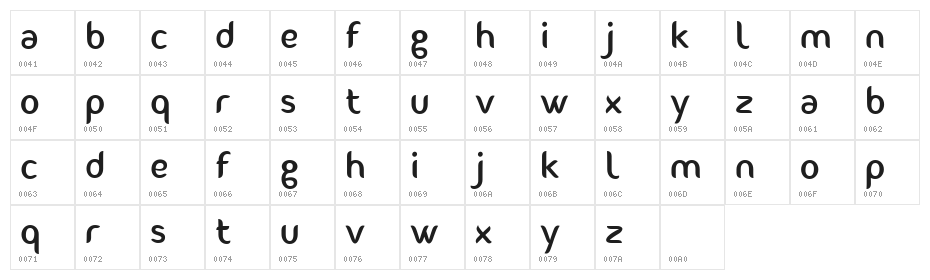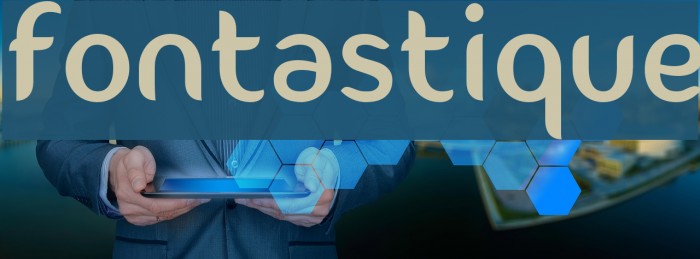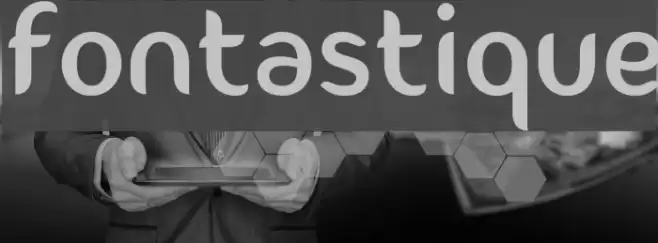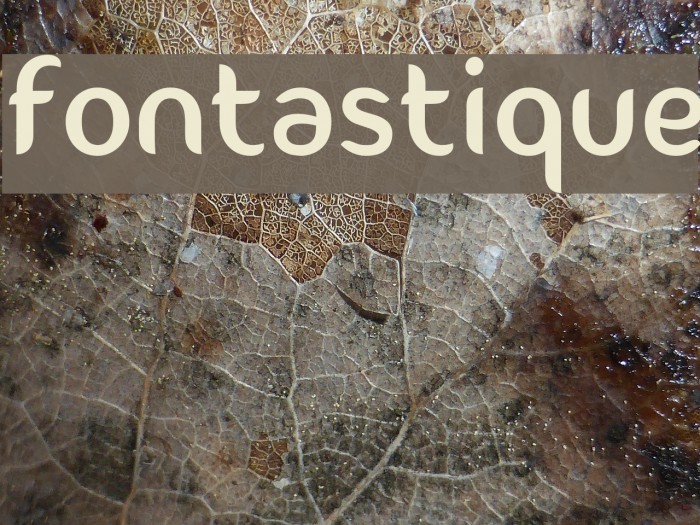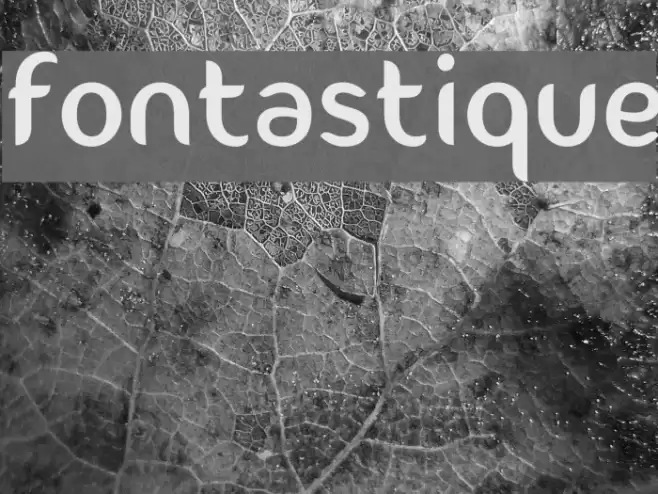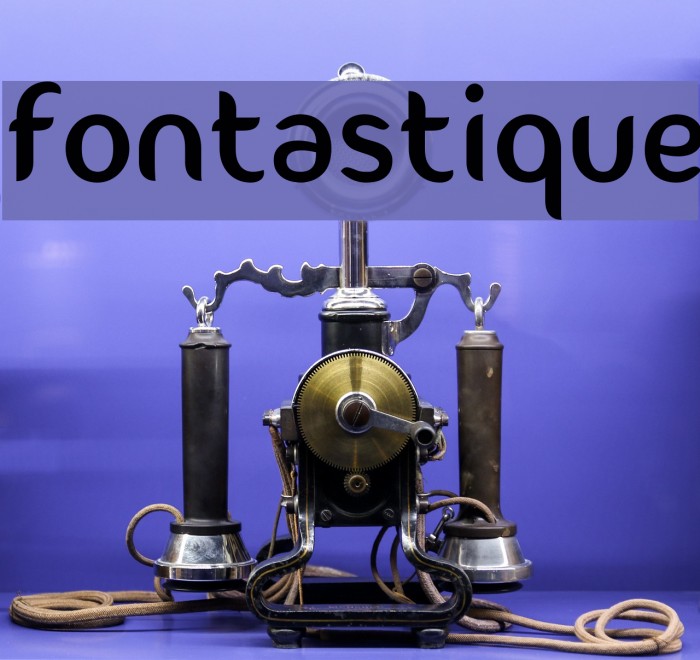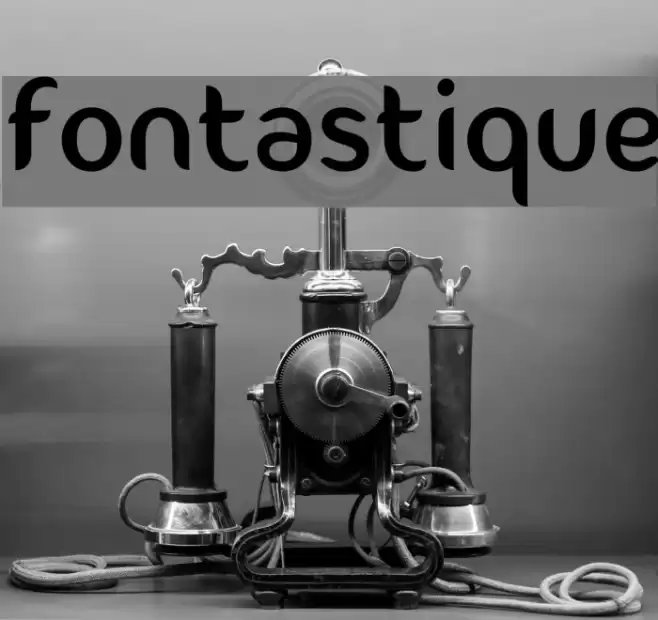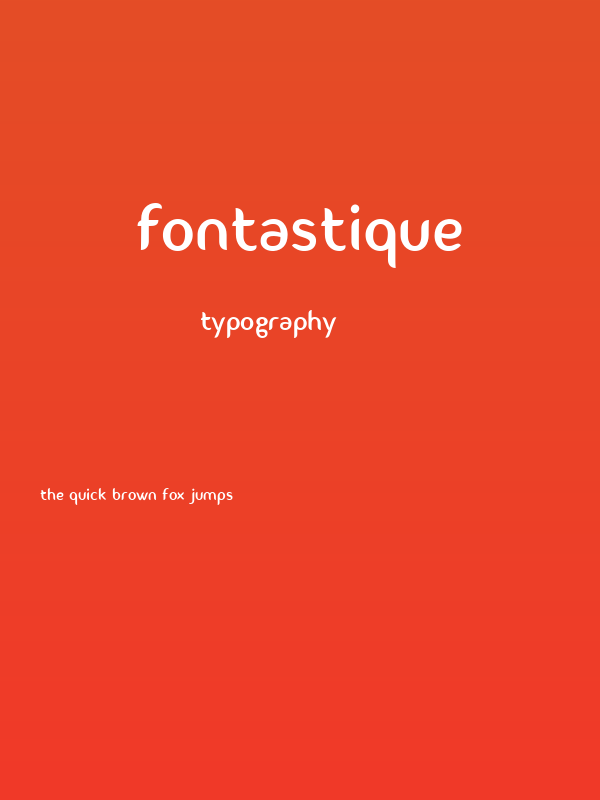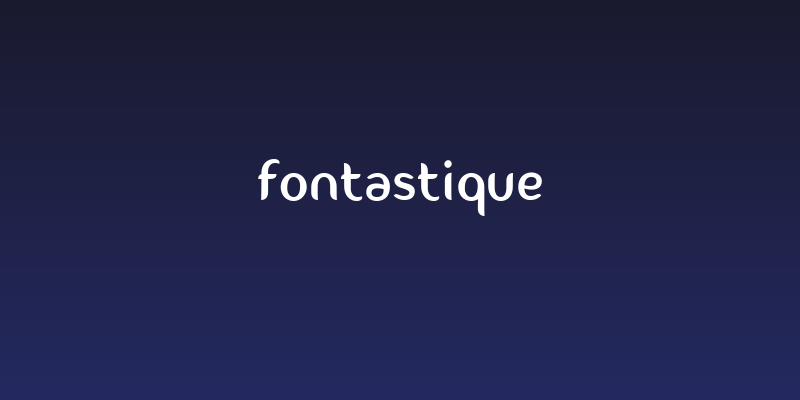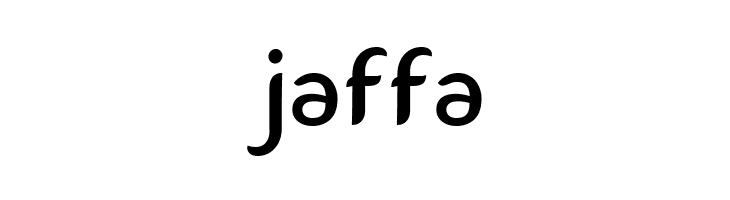
Fontastique Font
Fontastique Description
This font features a playful and rounded design, characterized by its smooth curves and friendly appearance. The letters are evenly spaced, with a consistent stroke width that gives it a clean and modern look. The rounded terminals and soft edges contribute to its approachable and informal style, making it suitable for a variety of creative projects. The font maintains a uniform weight throughout, providing a balanced and harmonious visual experience. Its simplicity and clarity make it versatile for both digital and print media.
| Use Case | Headlines, Logos, Casual Text |
| Proposed Projects | Ideal for children's books, playful branding, casual invitations, and social media graphics. |